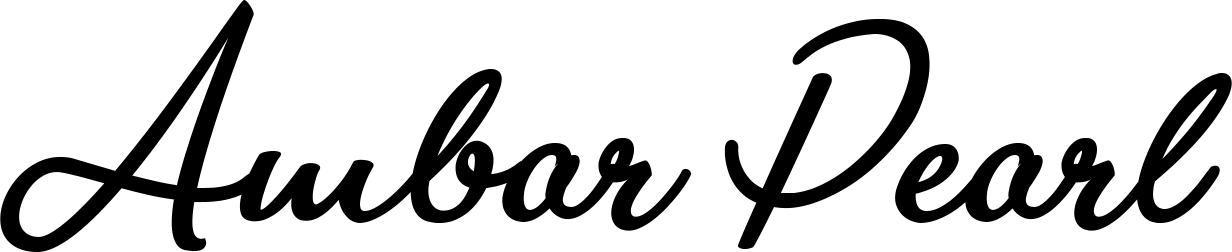
Ambar Pearl Font
Cursive fonts not only add elegance and creativity to your typography but, also give your text a more natural feel with a handwritten look! Amber Pearl is a font that provides you with clean and neat letterforms that include capital and lowercase letters that are suitable for most designs.
The Amber Pearl will give your text a modern look, with bold characters that look more interesting in places like tattoo shops, announcements, books, and anywhere you want something informal!